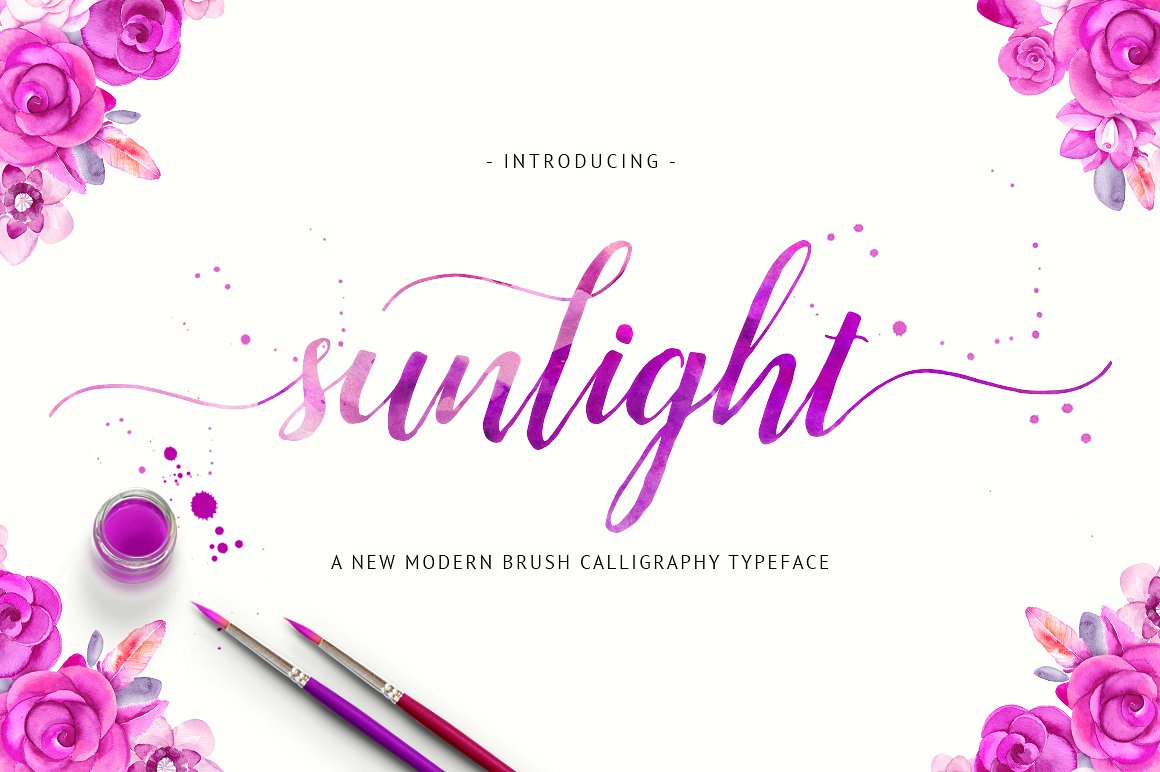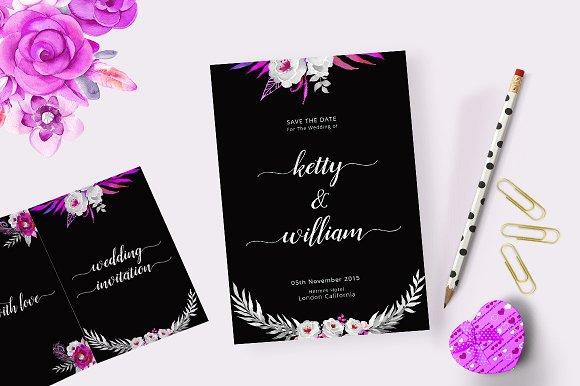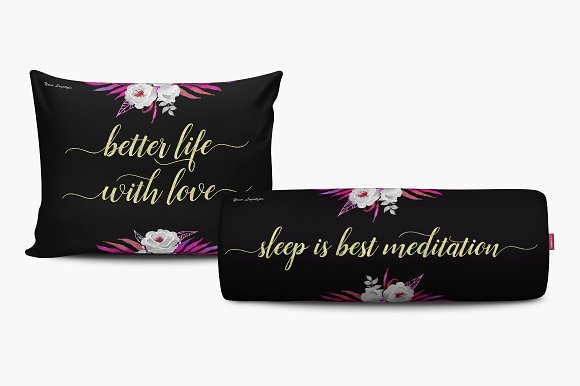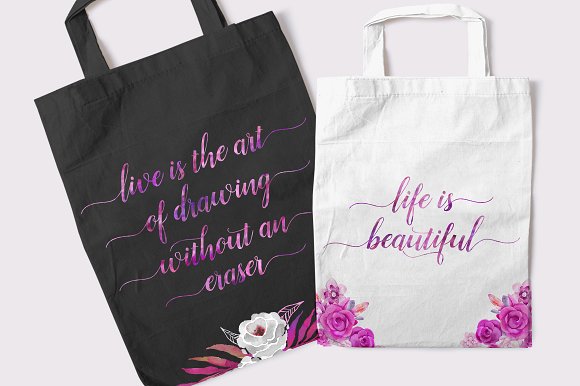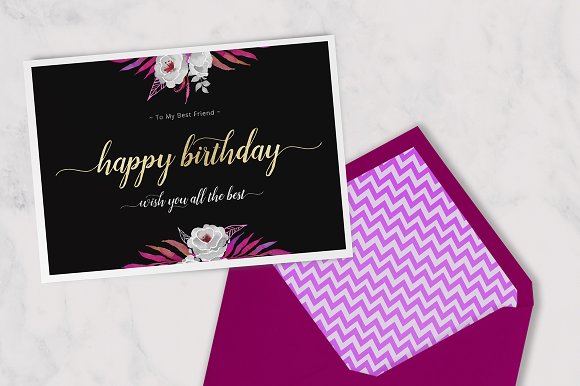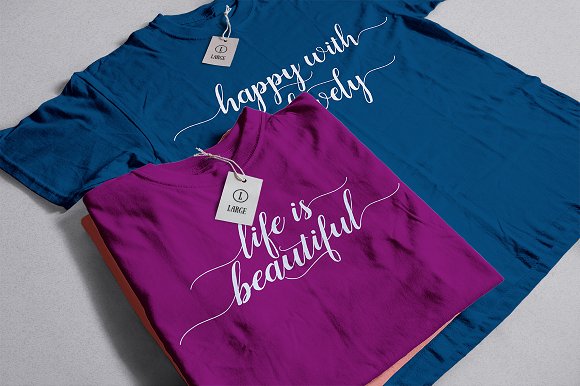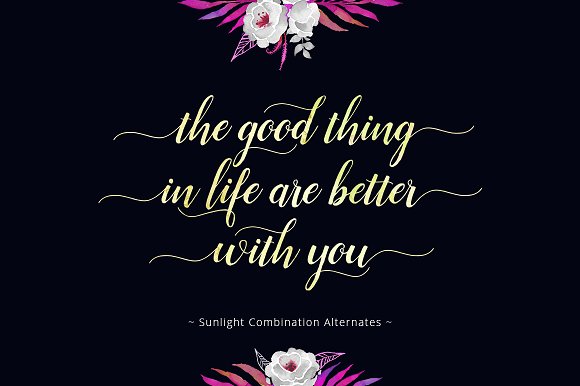
Sunlight Font
About Sunlight Font
Sunlight is a fun & modern calligraphic looking font created by Unicode. It comes packed with 260 unique characters and glyphs.